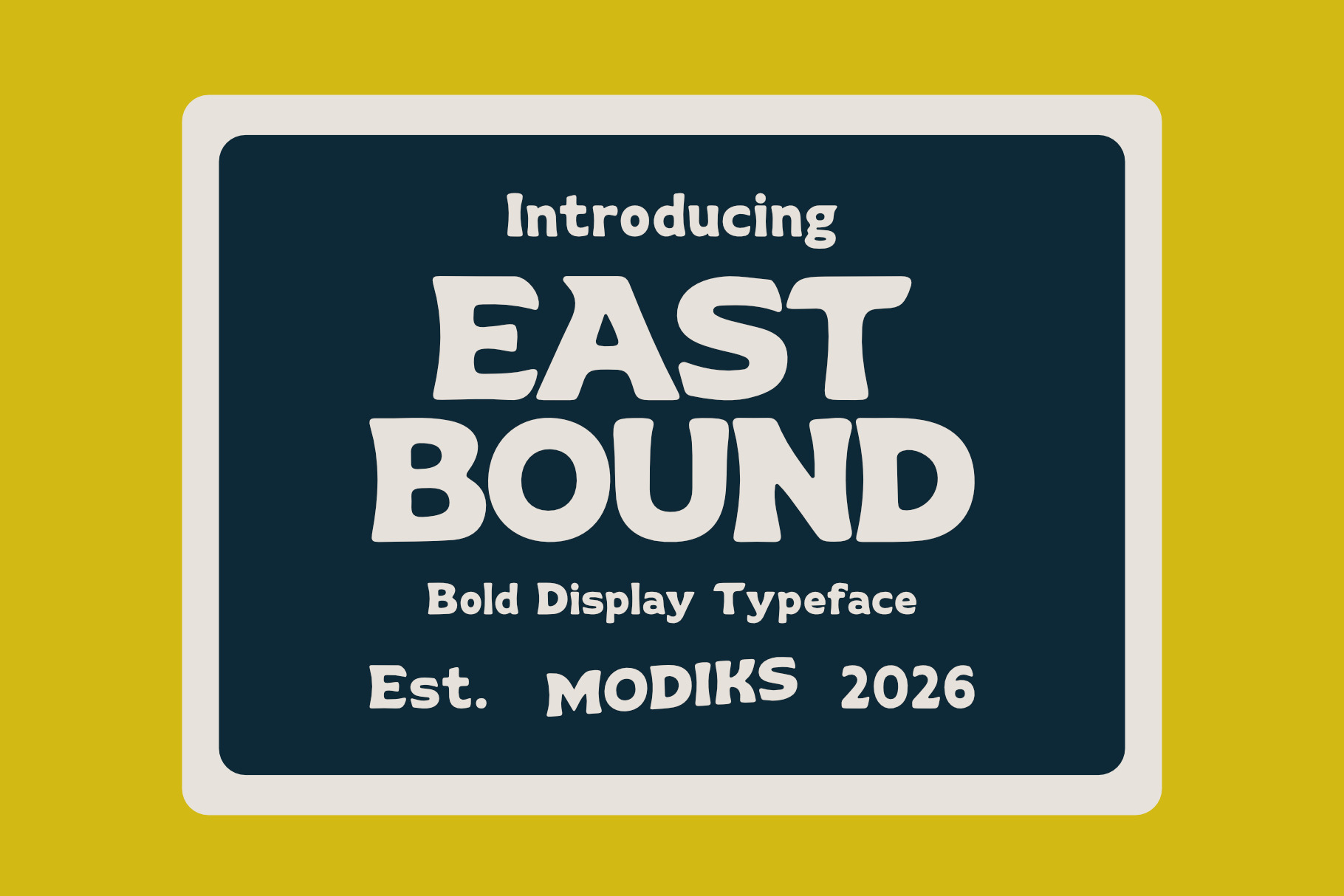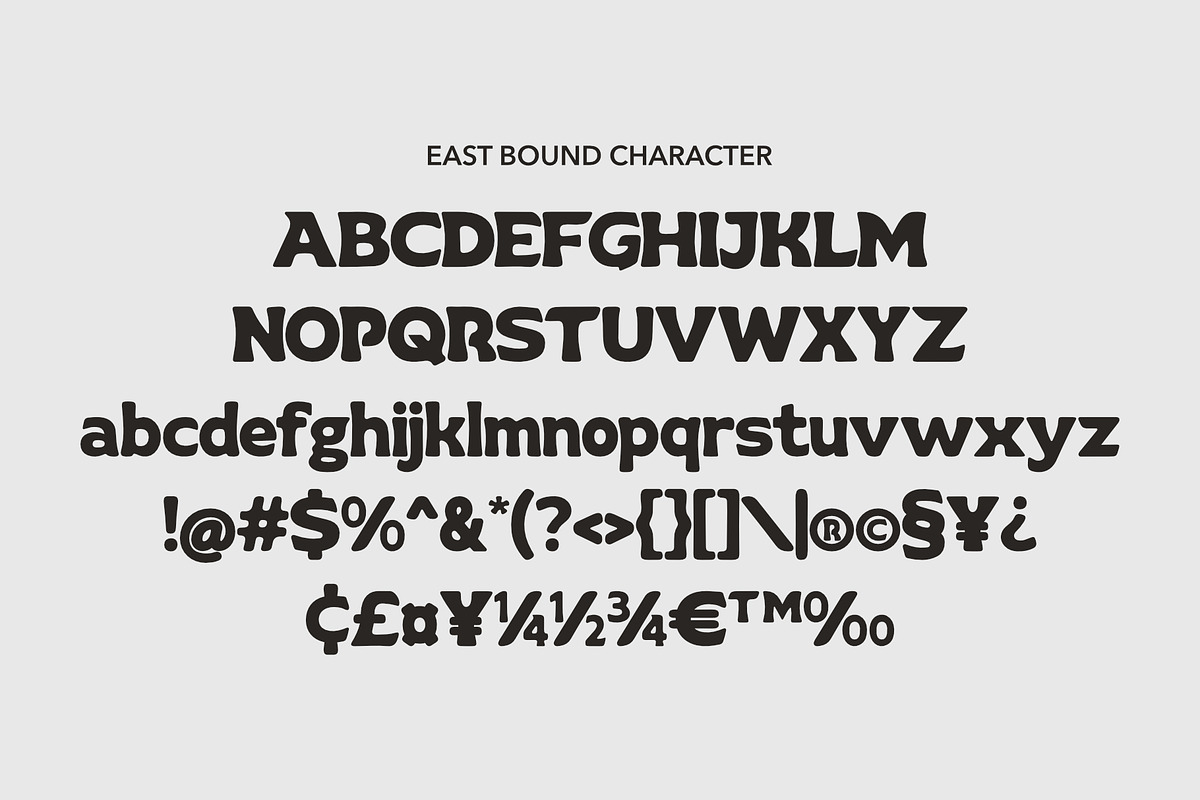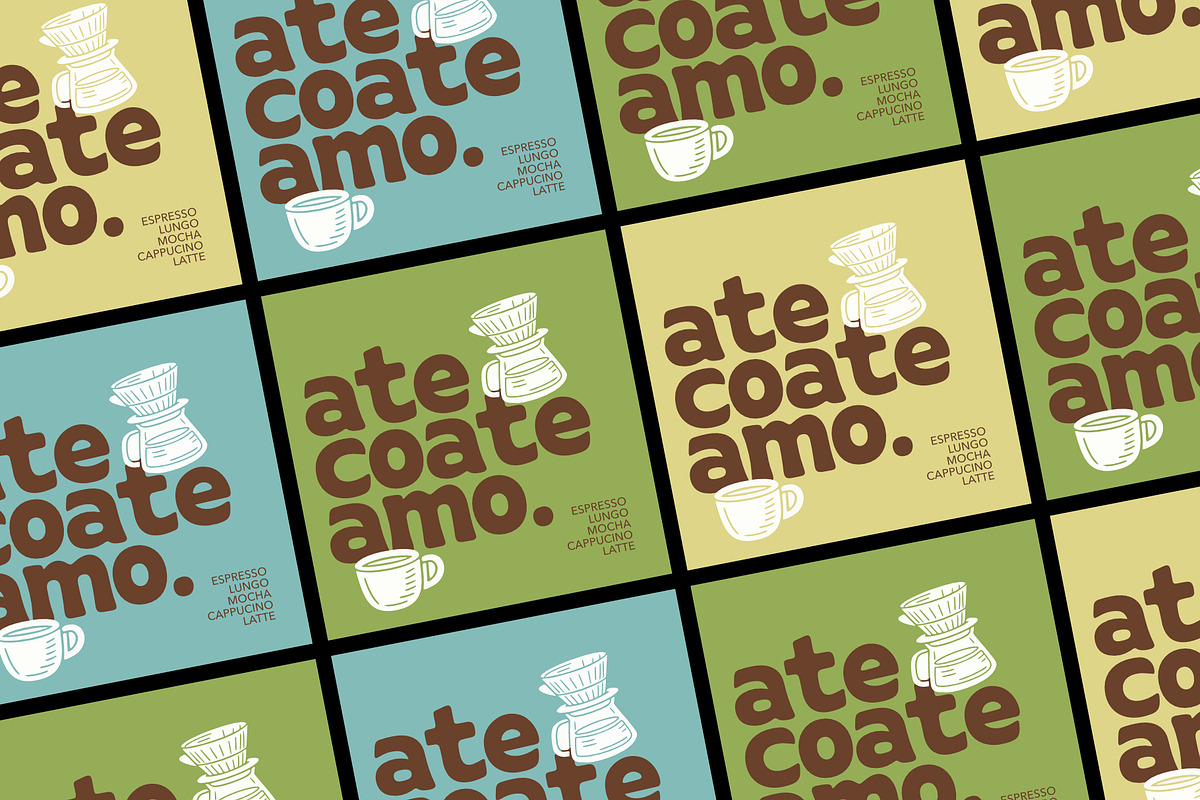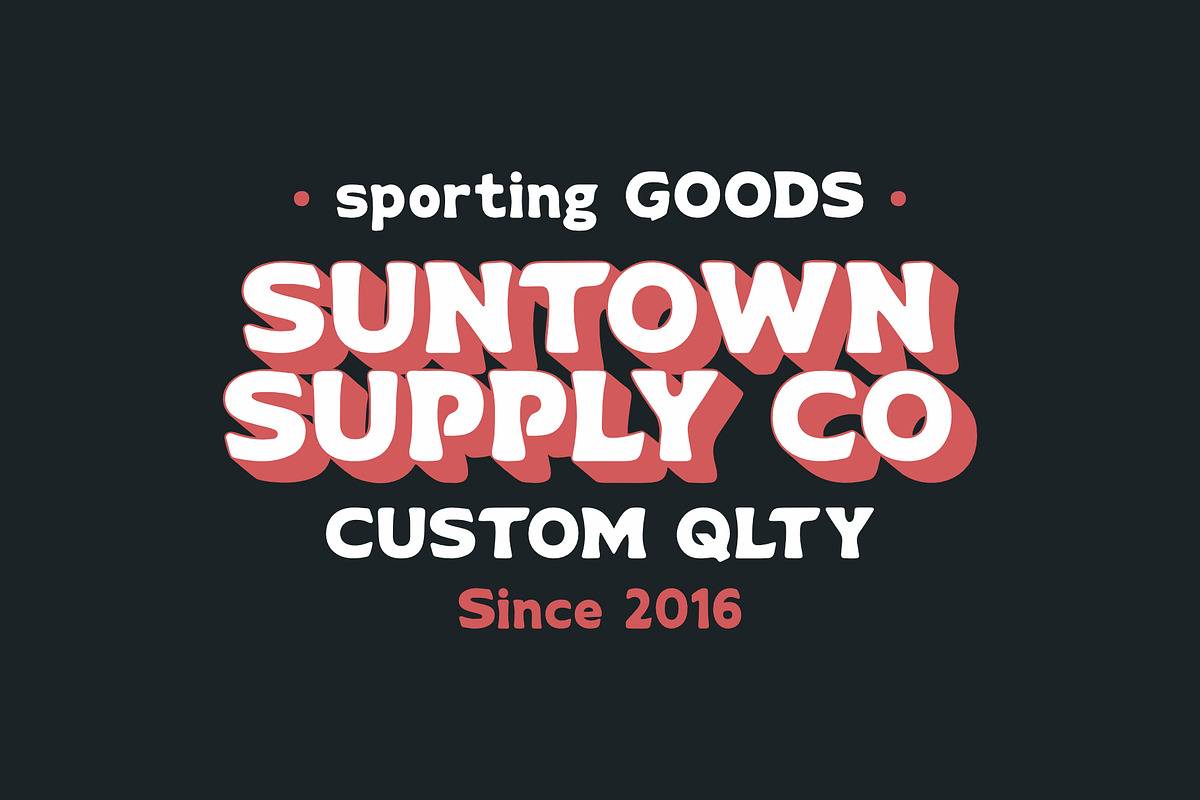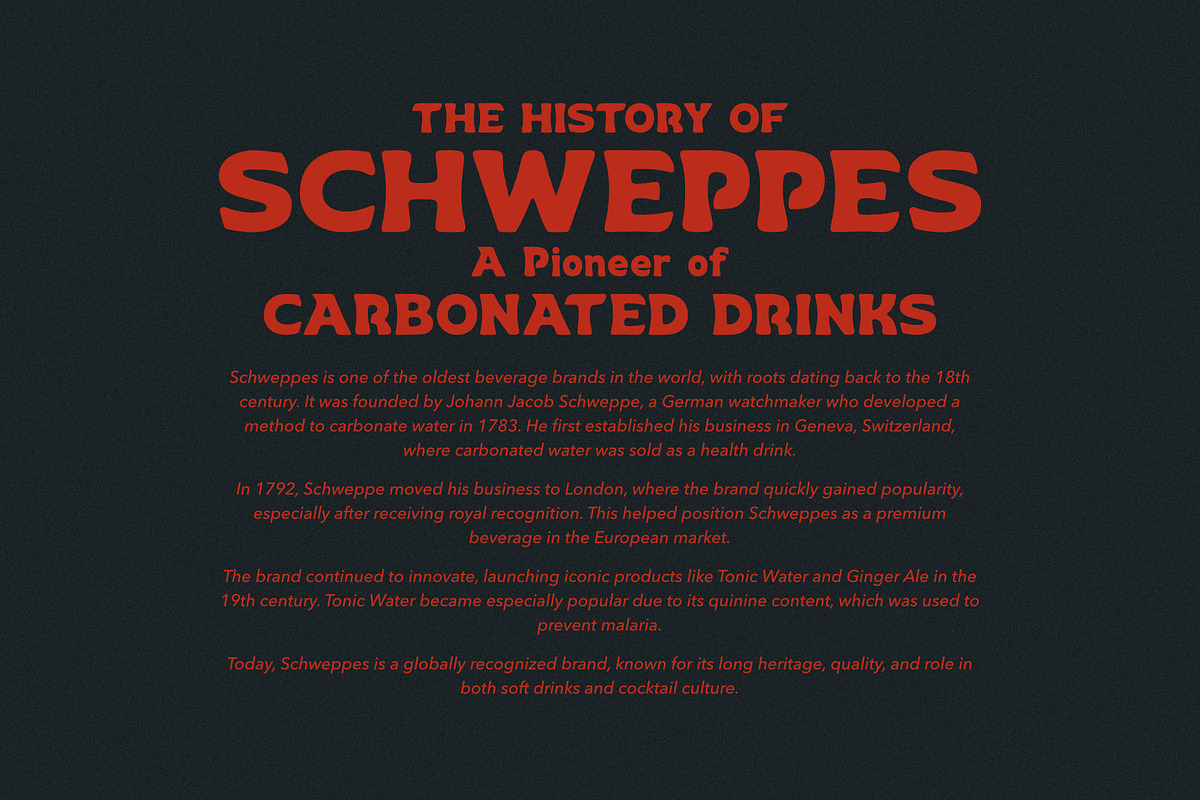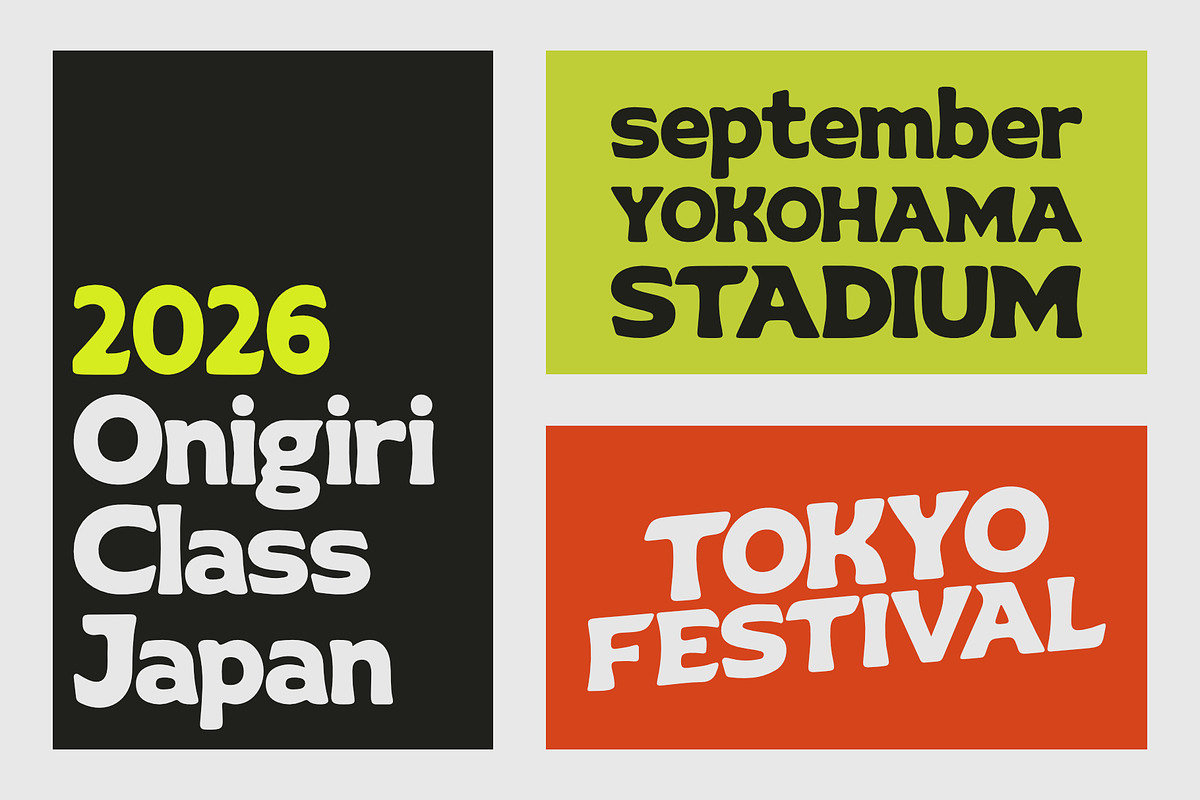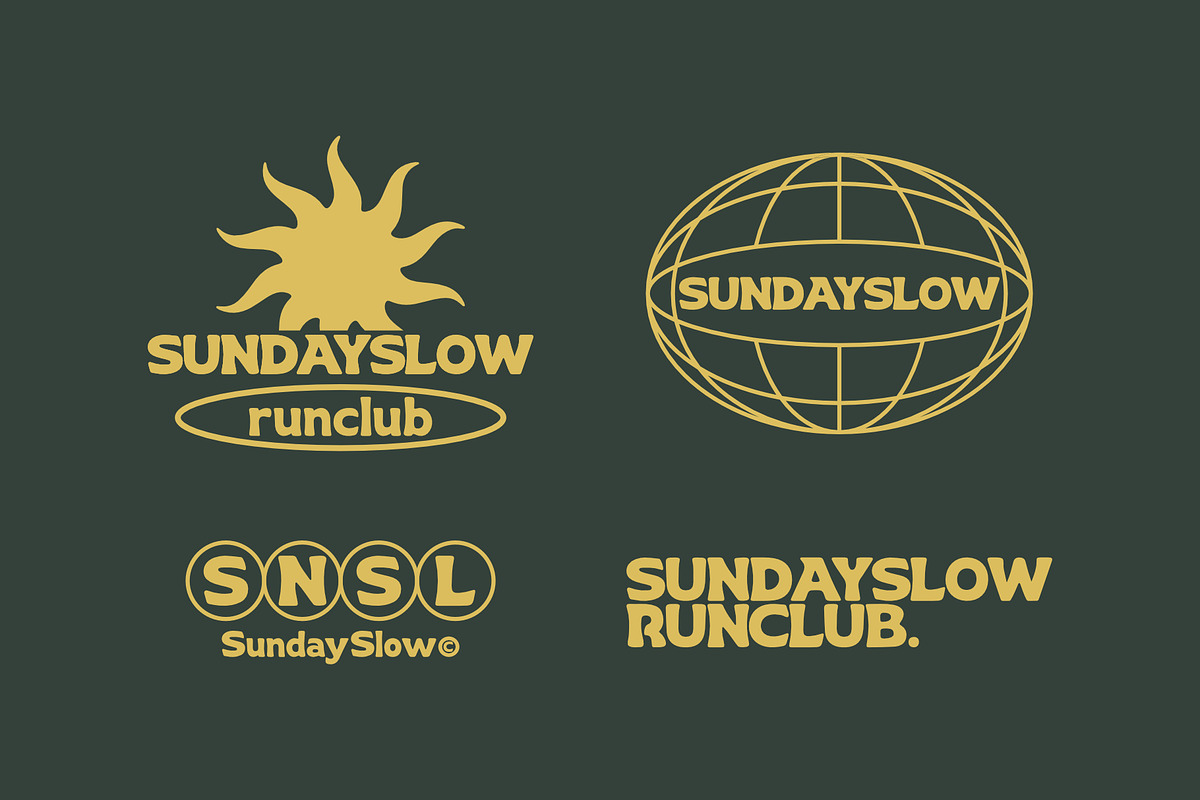
East Bound Font
Meet East Bound, a bold display font with a playful retro twist. Designed with thick strokes and smooth curves, this typeface instantly grabs attention and adds personality to any project.
Whether you're creating a sporty brand, a vintage poster, or a modern lifestyle design, East Bound brings a strong and friendly voice to your typography.
Its versatile style makes it ideal for both digital and print applications — from logos and apparel to packaging and social media content.